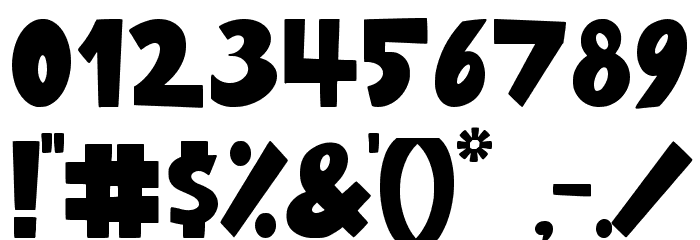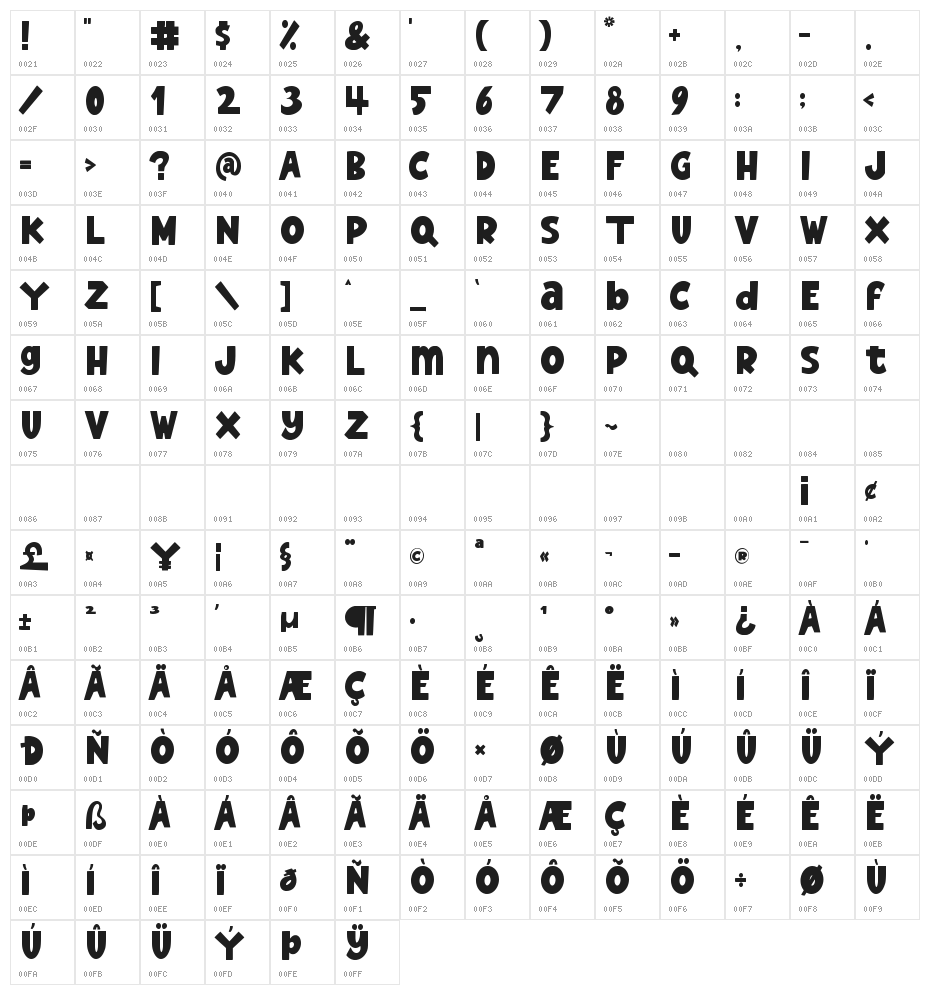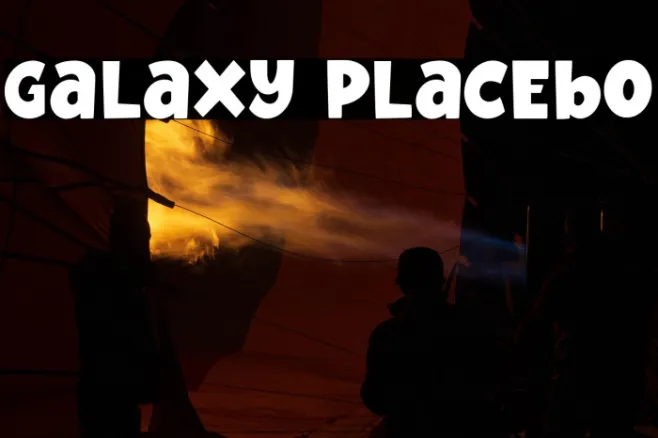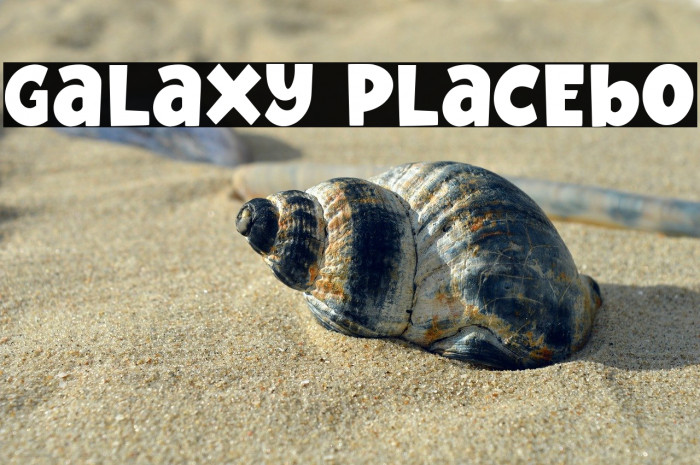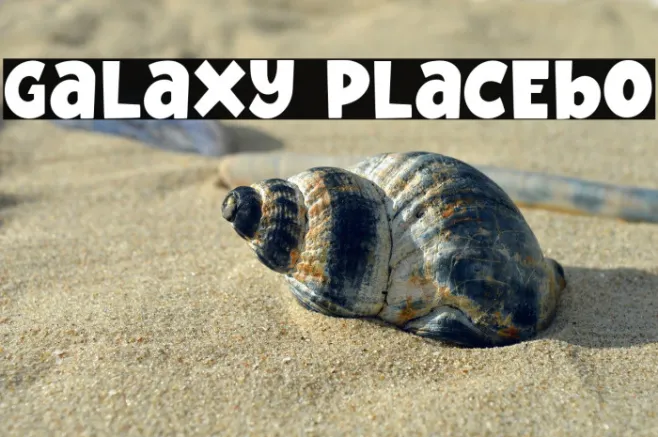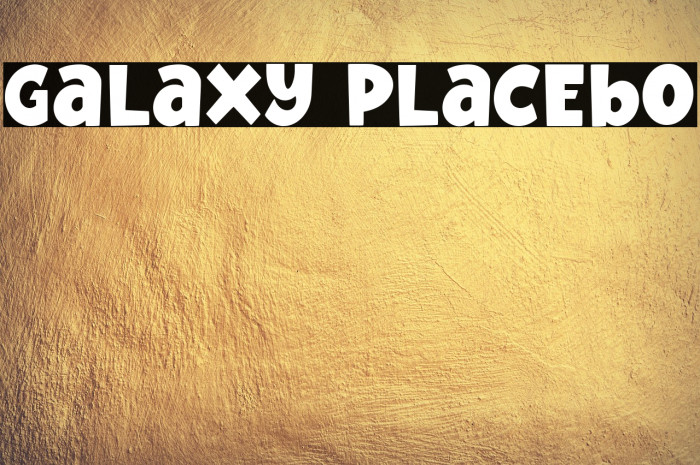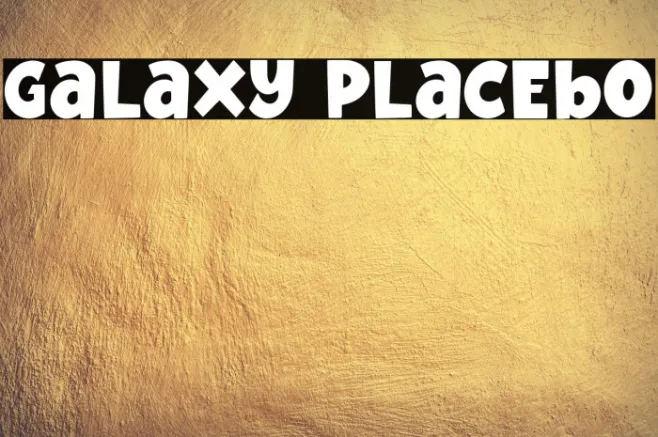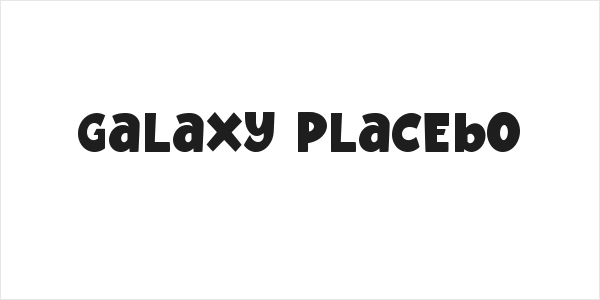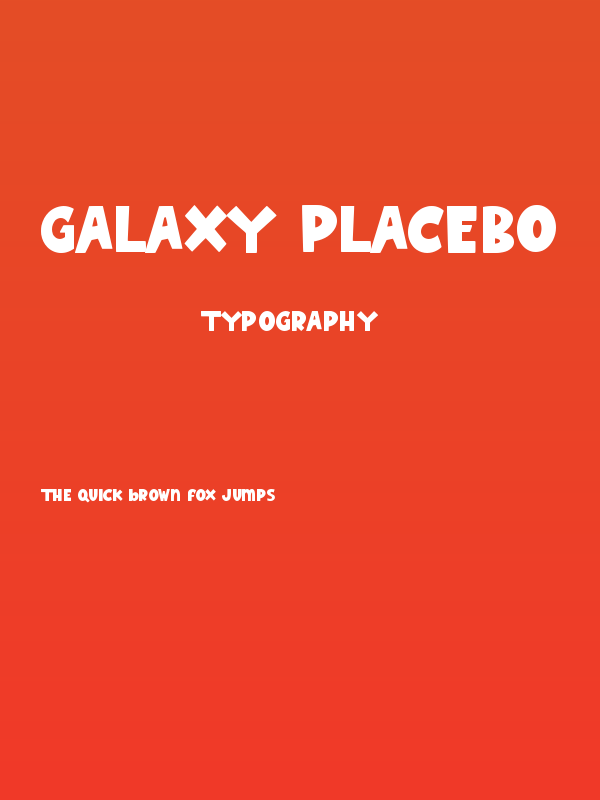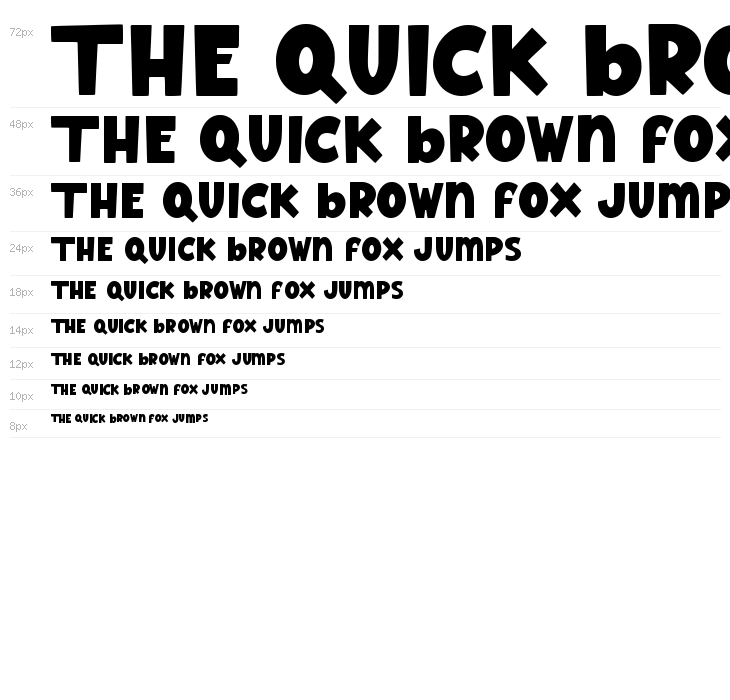
Galaxy Placebo Font
Galaxy Placebo Description
This font features bold, playful characters with a distinctively chunky and rounded appearance. The letters have a whimsical and informal style, making them stand out with their thick strokes and slightly uneven edges. The uppercase and lowercase letters maintain a consistent weight, contributing to the font's cohesive look. The numbers and special characters follow the same playful design, ensuring a uniform appearance across all glyphs. This font's unique style makes it ideal for projects that require a fun and engaging visual element.
| Proposed Projects | Ideal for children's books, playful branding, posters, and event invitations. |